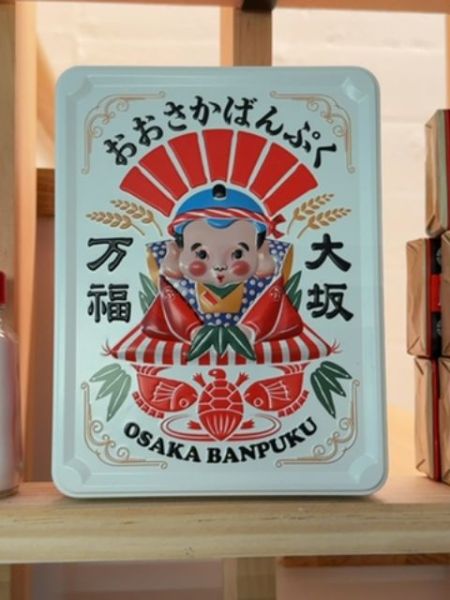
Osaka Banpuku
A traditional Japanese confectionery item, likely a sweet treat or snack.
Typography
The typography blends traditional Japanese characters with Western alphabet fonts. The Japanese kanji are bold and black, conveying a sense of tradition and weight, while the Latin letters are in a serif font that suggests classic style and refinement. The combination creates a harmonious balance between cultural authenticity and international accessibility.
Packaging
The packaging features a vibrant illustration of a character in traditional attire, encircled by a red and white design inspired by Japanese motifs. It is presented on a sturdy rectangular metal tin, indicating a premium product offering, with intricate decorative borders.
Facts
- The product originates from Osaka, Japan.
- It is likely a part of a cultural or festive series, incorporating traditional designs.
- The packaging seems to aim at both preserving the product and being visually collectible.